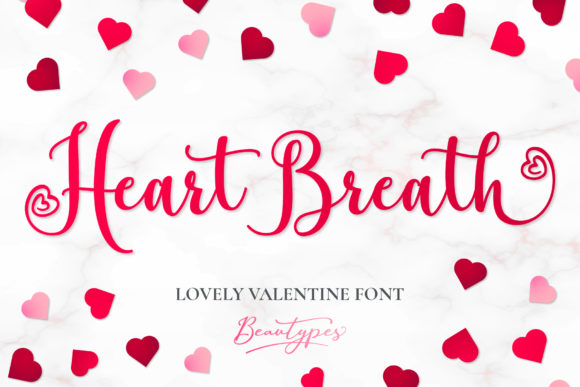
About Heart Breath Font
Heart Breath is a romantic and dazzling script font that exudes love and charm. With its well-rounded and distinct letters, this font is truly a masterpiece that adds a touch of elegance and romance to any design.
The romantic nature of Heart Breath makes it perfect for a wide range of projects. From wedding invitations to love notes, Heart Breath’s flowing and graceful script creates a sense of warmth and affection that touches the heart of the reader.
In wedding invitations, Heart Breath sets the perfect tone for a romantic and special occasion. Its smooth and elegant curves add an element of sophistication and romance, making the invitations even more enchanting and memorable.
Love notes written with Heart Breath feel truly heartfelt and intimate. The well-rounded and distinct letters of the font enhance the expressions of love and tenderness, creating a deep and emotional connection with the recipient.
When used in quotes, social media posts, and branding, Heart Breath adds a touch of charm and elegance to the messages, making them more captivating and endearing to the audience.
The fact that Heart Breath is PUA encoded makes it even more versatile and user-friendly. Users can easily access all the glyphs and swashes, unlocking a wealth of design possibilities and creative freedom.
Overall, Heart Breath is a font that embodies romance and elegance. Its well-rounded and distinct letters make it a true masterpiece that adds a touch of love and allure to any design. Whether it’s in wedding invitations, love notes, quotes, branding, or any other creative project, Heart Breath is sure to evoke emotions and create a lasting impression. Embrace the romance and dazzle of Heart Breath in your designs and let it infuse your creations with love and beauty.